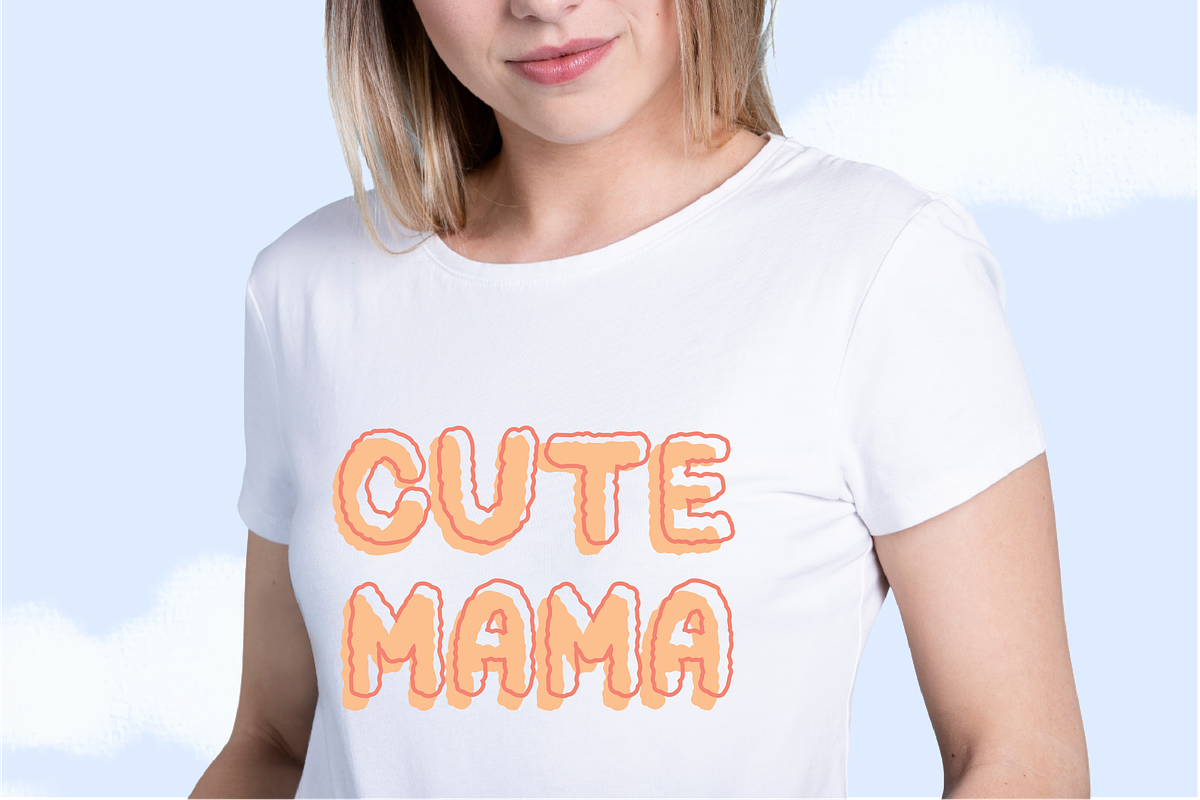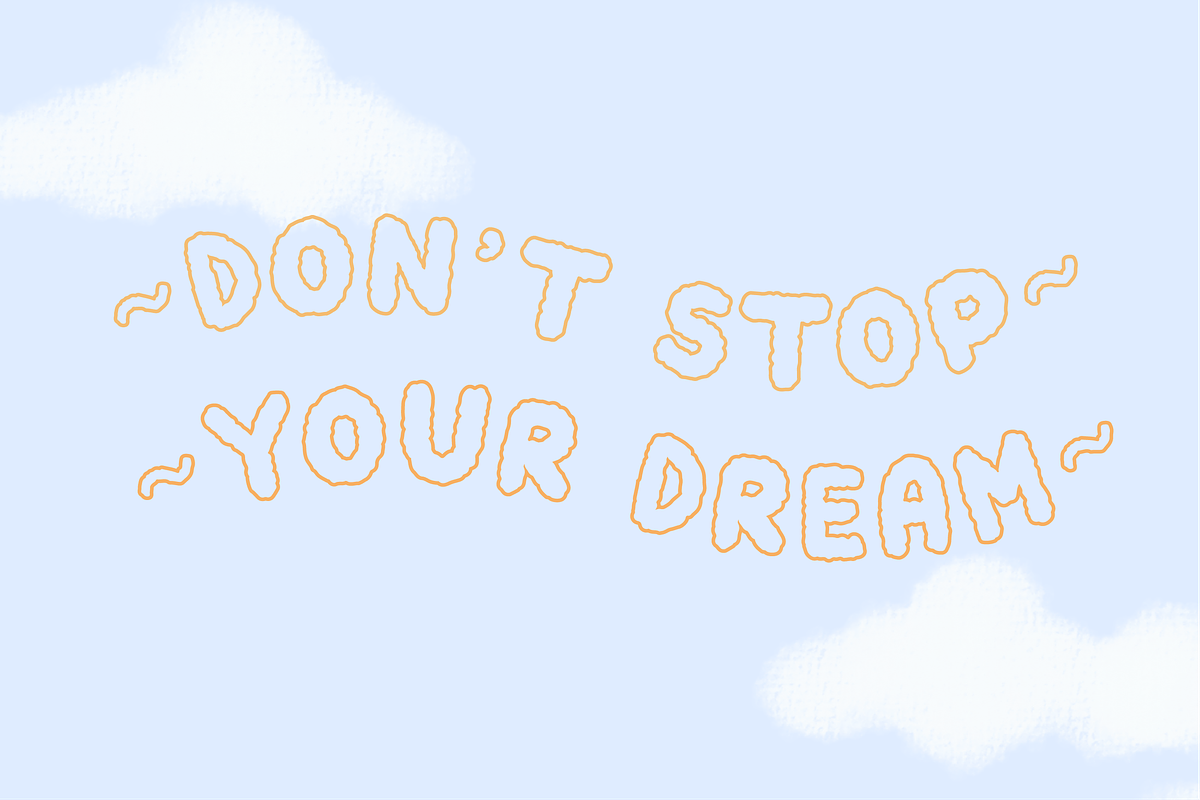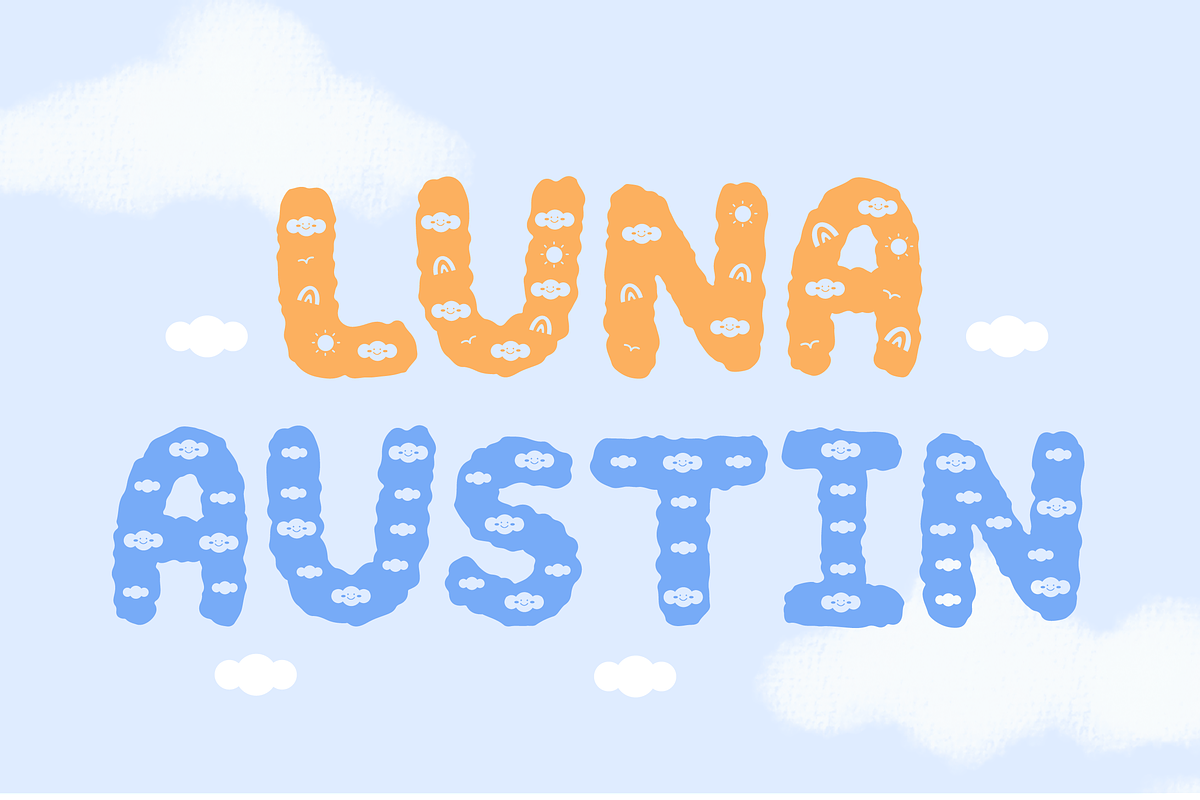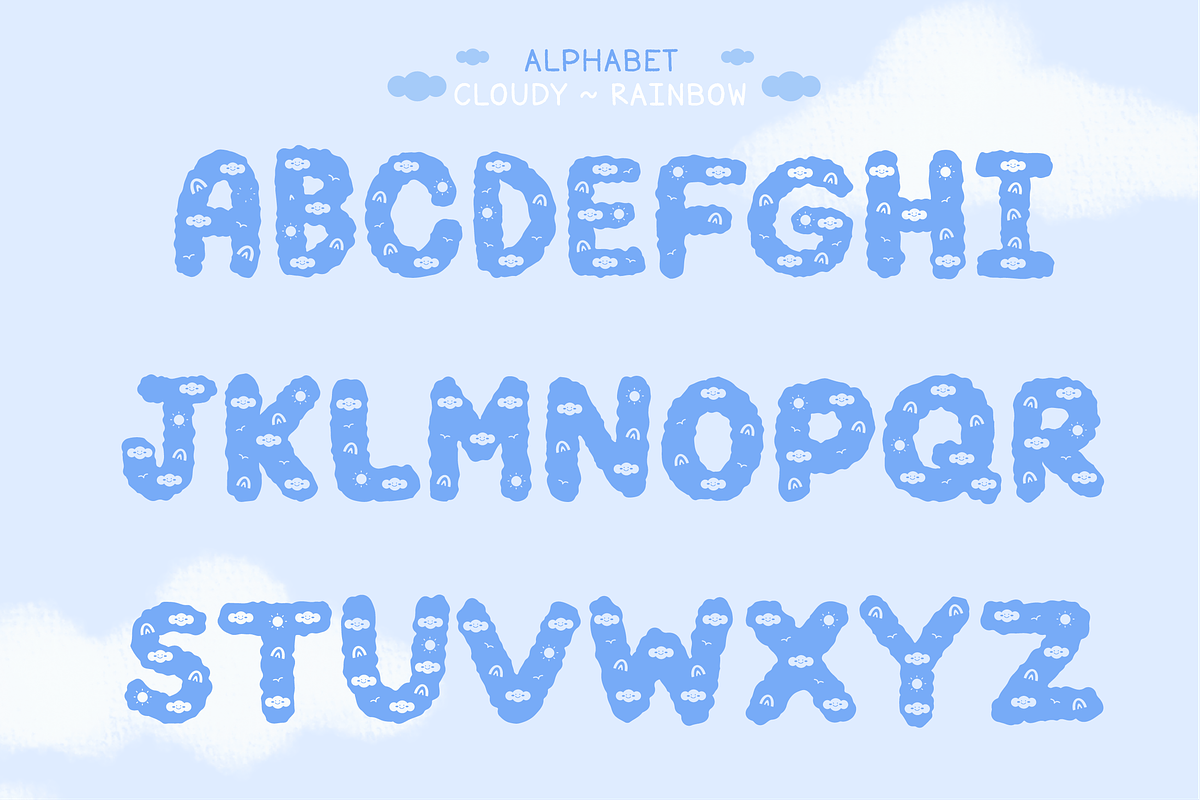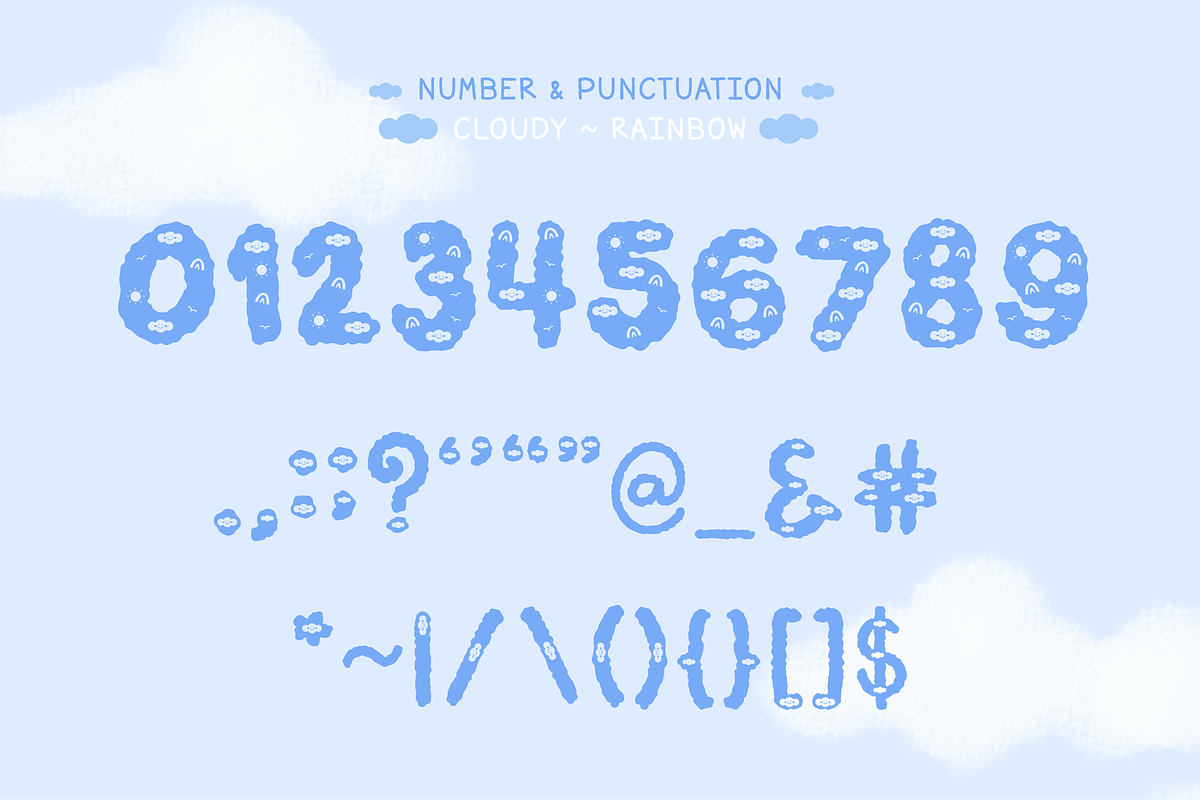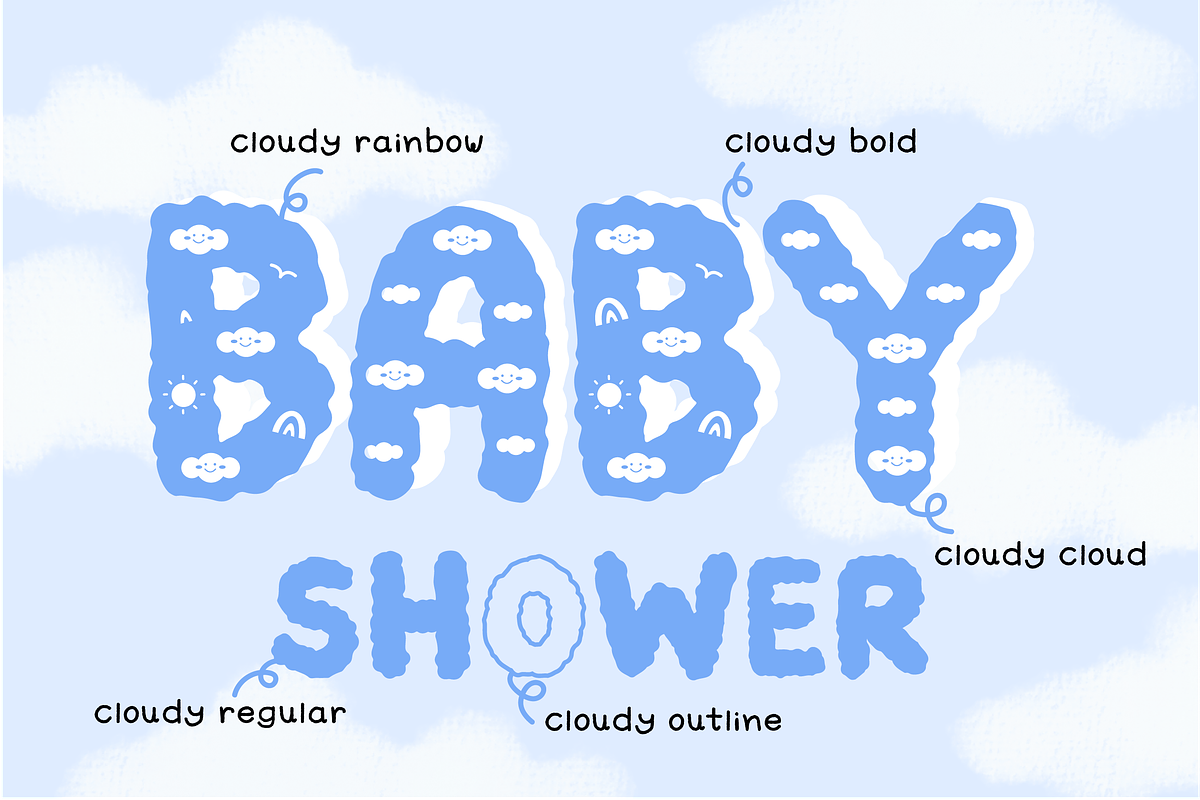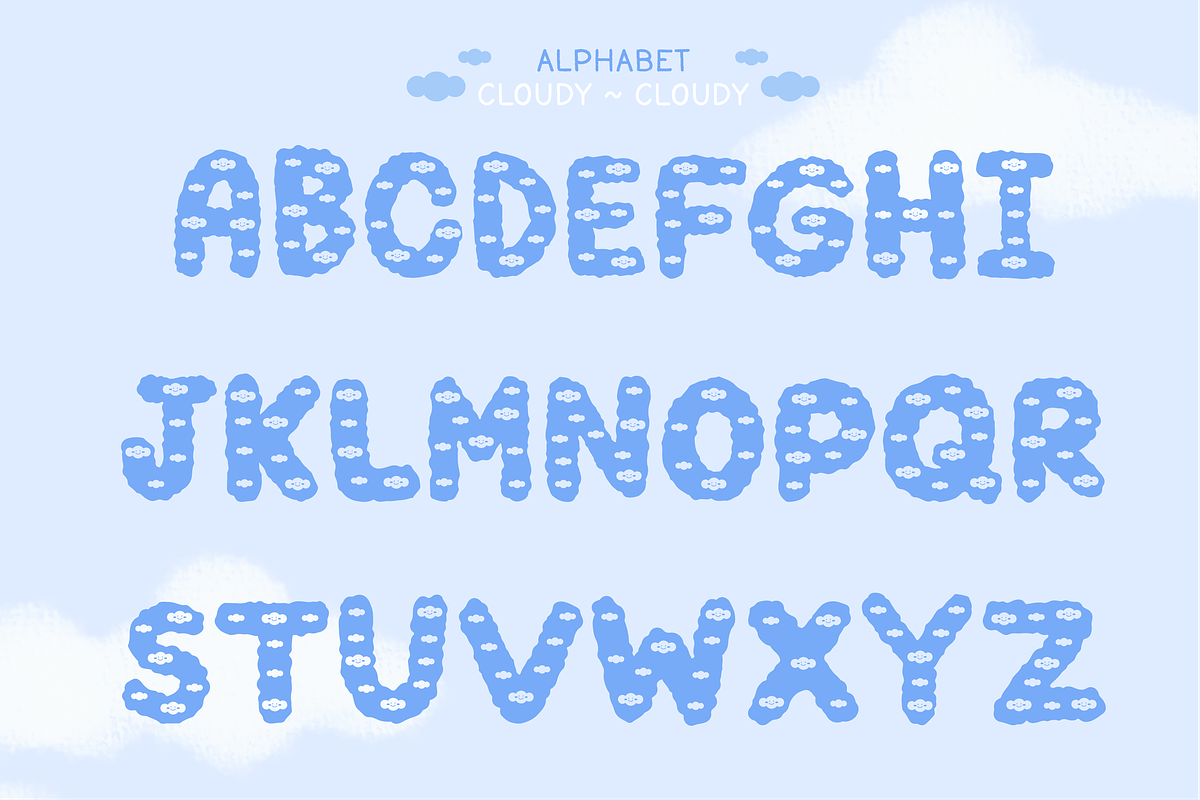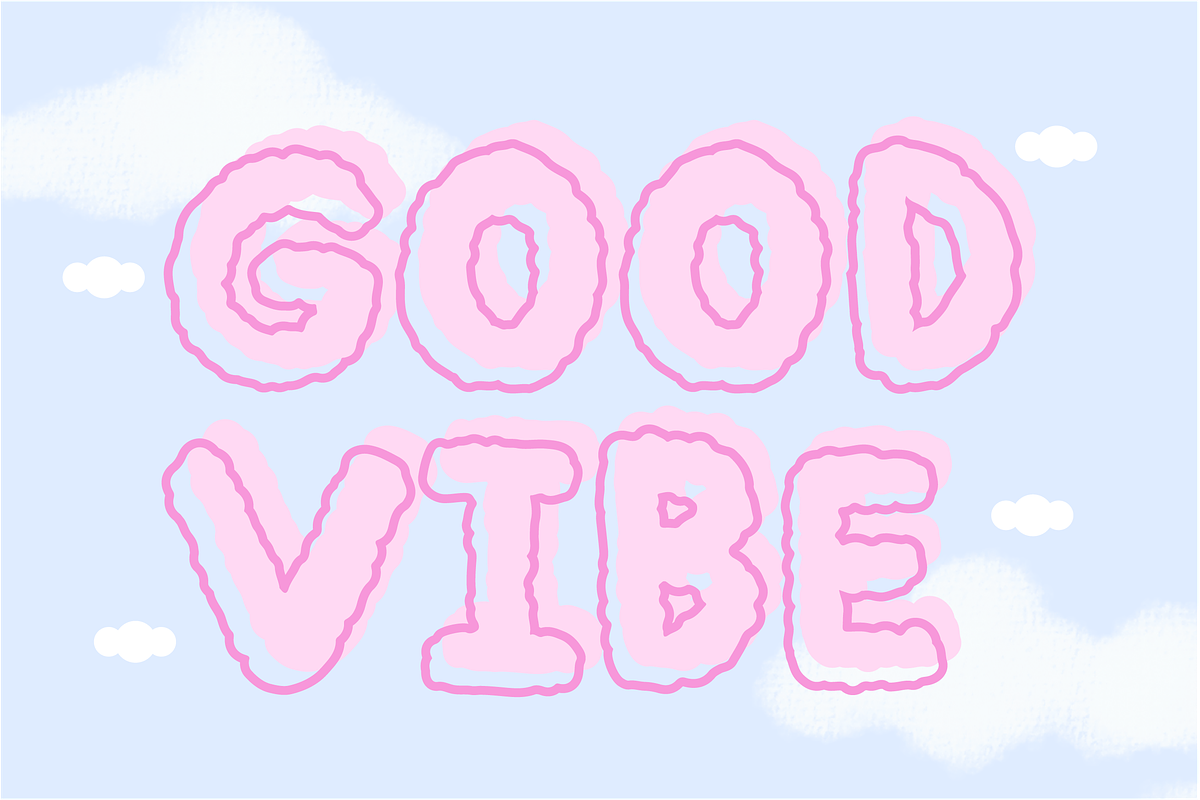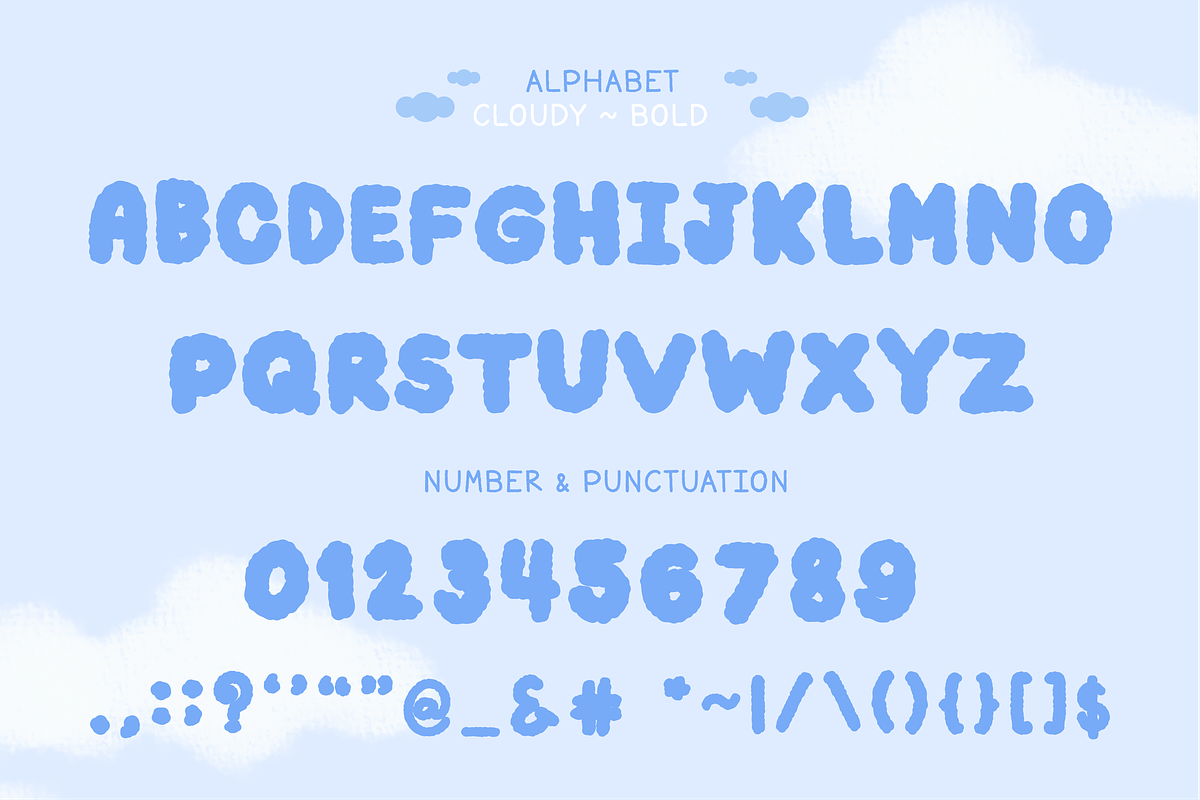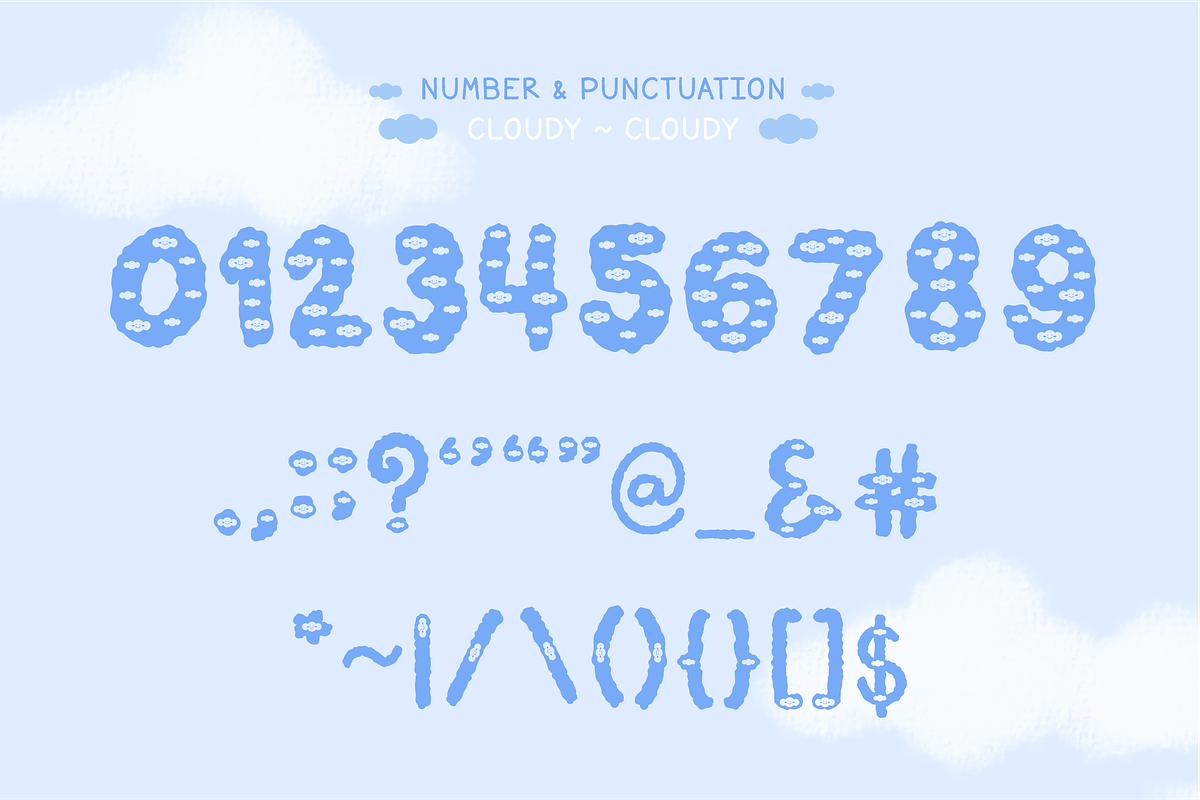
Cloudy - Cute Decorative Font
Cloudy is a decorative font featuring fluffy, cloud-like shapes with adorable facial expressions. The letters are soft and rounded, giving a whimsical and playful feel. Perfect for adding a touch of charm to children’s books, greeting cards, and other creative projects.